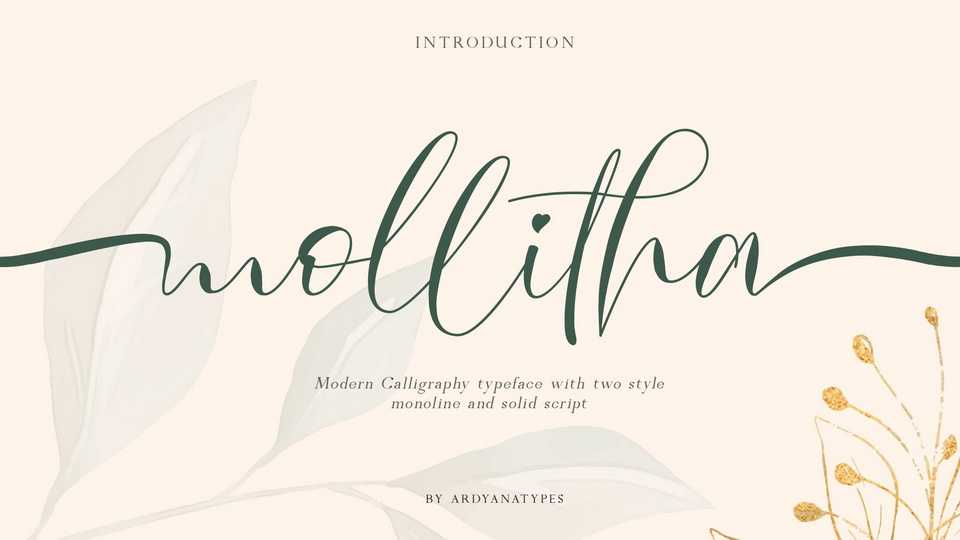
Download Mollitha font, a charming script created in modern type of calligraphy style by giving special touches to make it look beautiful and attractive.
Designer: Ardyana Types